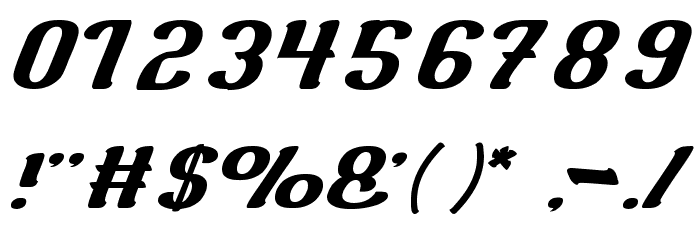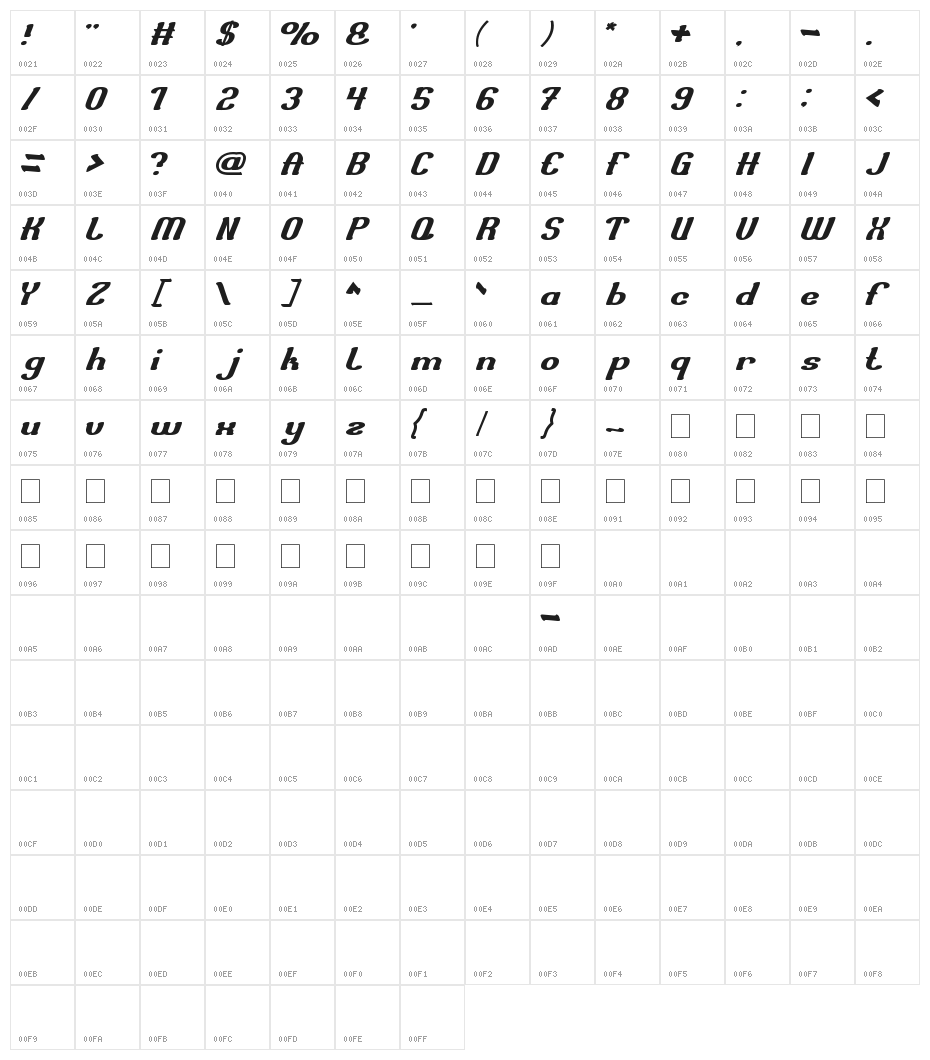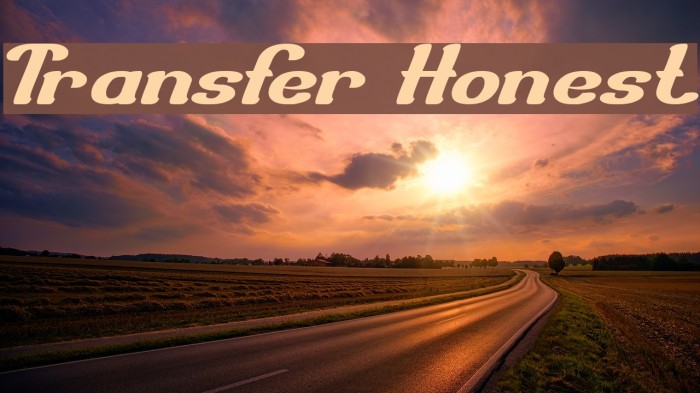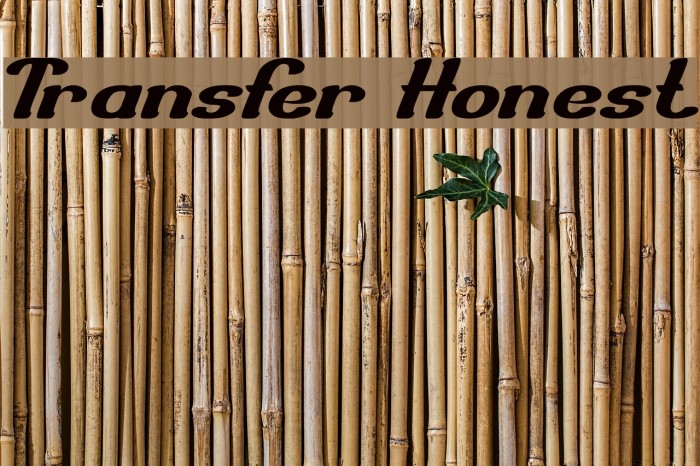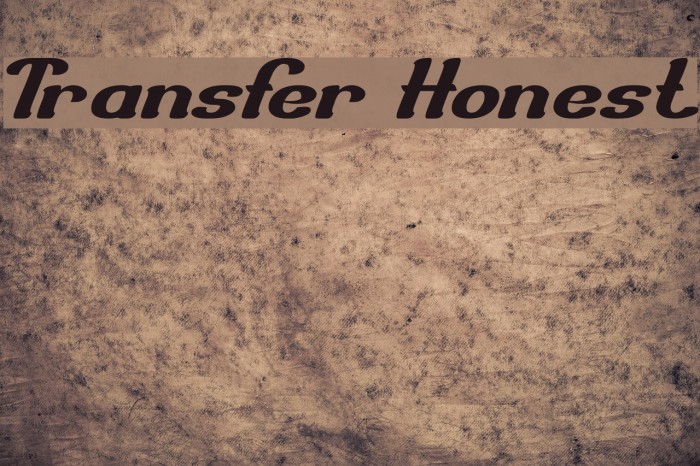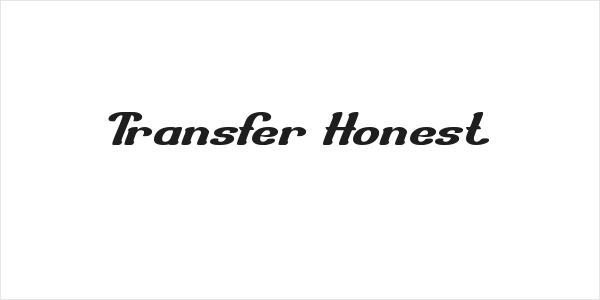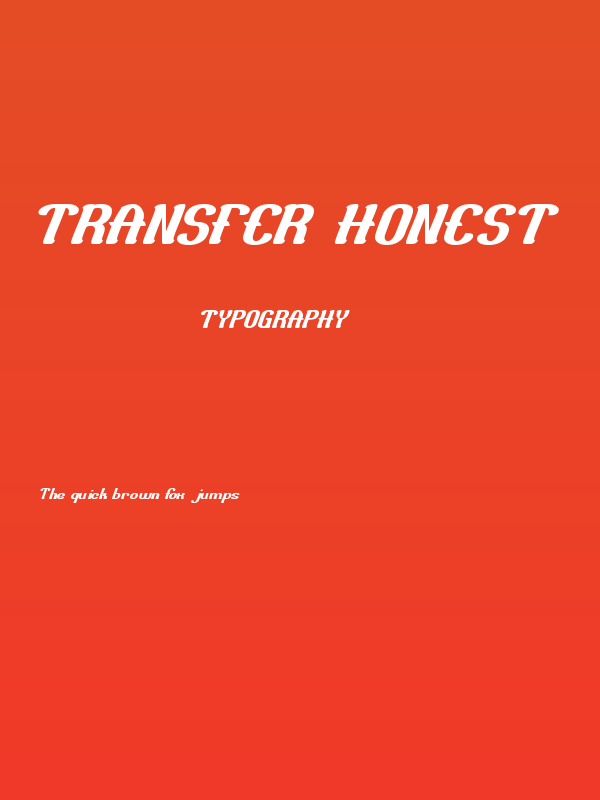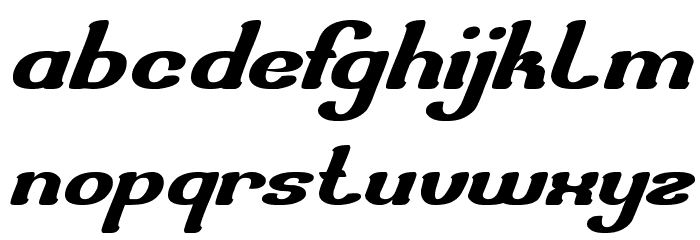
Transfer Honest Font
Transfer Honest Description
This font features a bold, cursive style with a strong presence and fluid strokes. The characters are slightly slanted, giving it a dynamic and energetic feel. The uppercase letters are robust and commanding, while the lowercase letters maintain a consistent flow, enhancing readability. The numerals are clear and bold, matching the overall aesthetic. Special characters are well-integrated, maintaining the font's cohesive look. This font's design is both expressive and legible, making it suitable for various creative applications.
Proposed ProjectsIdeal for branding, headlines, posters, and creative design projects where a bold statement is needed.